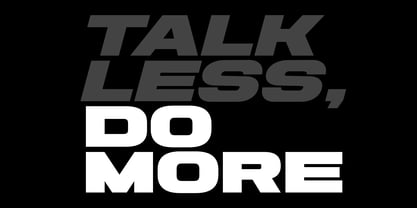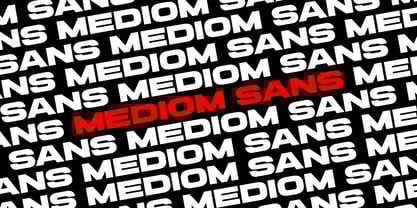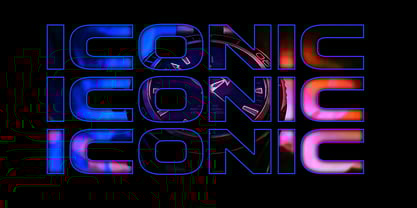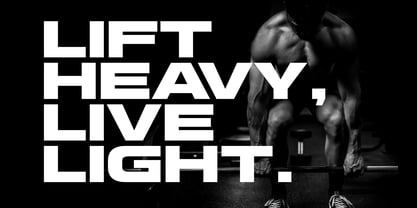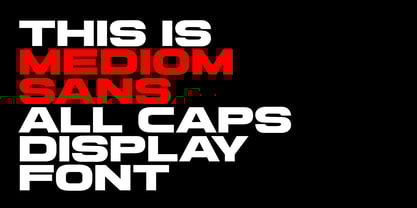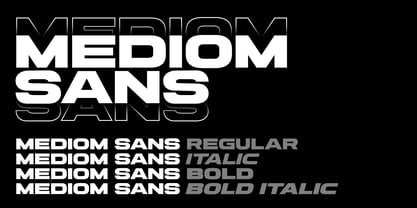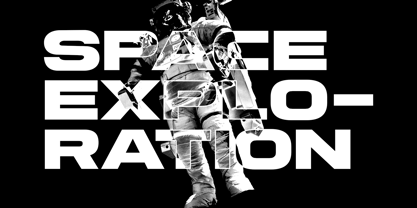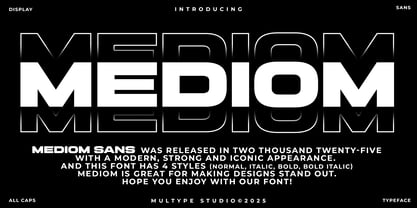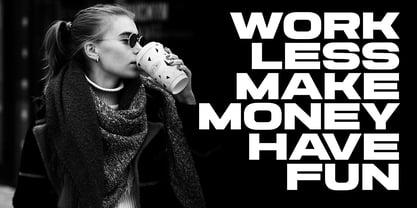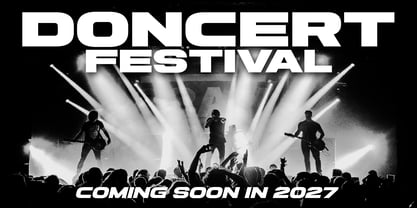
Mediom Sans
by Multype Studio
The Mediom Sans Font Family was designed by Mulia Yanto and published by Multype Studio. Mediom Sans contains 4 styles and family package options. More about this family
Mediom Sans is a bold sans serif font which looks great to be modern, strong and iconic appearance. This a powerful bold sans-serif display font designed for speed, strength, and modern performance. This font is great for making designs stand out. This font has 4 styles (Normal, Italic, Bold, Bold Italic) Mediom Sans is also suitable to be applied especially in logo, branding, promotions, posters, book covers, magazine layouts, social media, headlines, titling, movie title, logo brand, logo company, layout website and other design. This sport display font works flawlessly for racing logos, athletic branding, esports teams, posters, product packaging, car decals, racing teams, sports branding, esports logos, performance products, tech startups, automotive design, and bold marketing visuals, and advertising. Its thick, compact structure ensures high legibility, making it perfect for both print and digital design. Mediom Sans : ALL CAPS (normal, Italic, bold, bold italic), Numbers & Symbols, Works on PC / Mac, Simple installations, Accessible in the (Adobe Illustrator, Adobe Photoshop, Adobe InDesign, even work on Microsoft Word) , PUA Encoded Characters, Fully accessible without additional design software, Multilingual support. Thank you for your purchase! Hope you enjoy with our font!